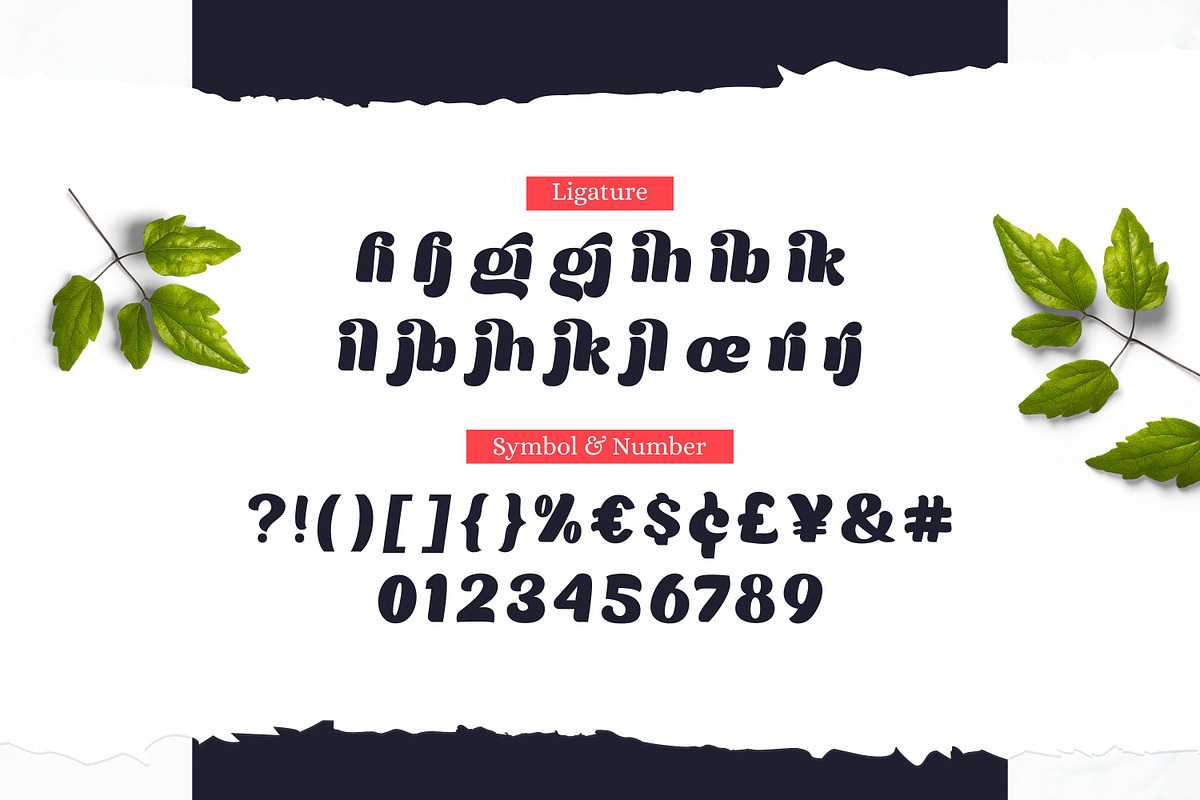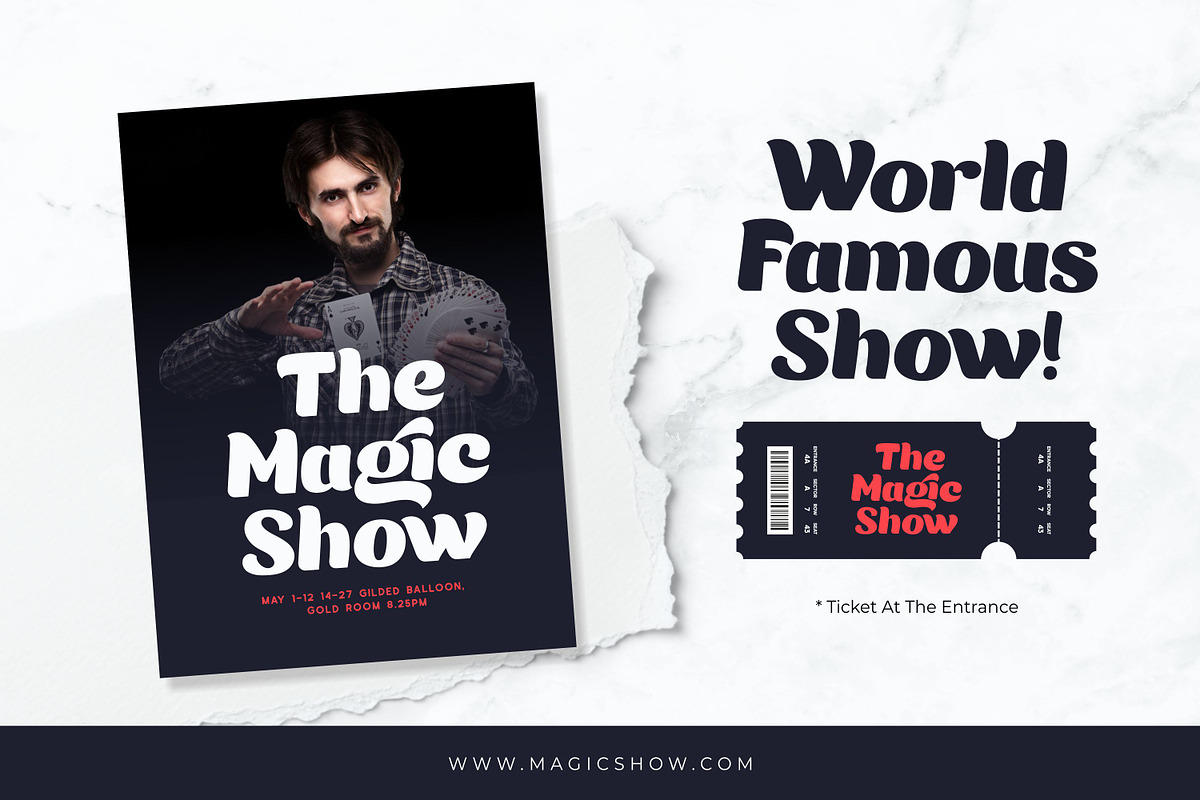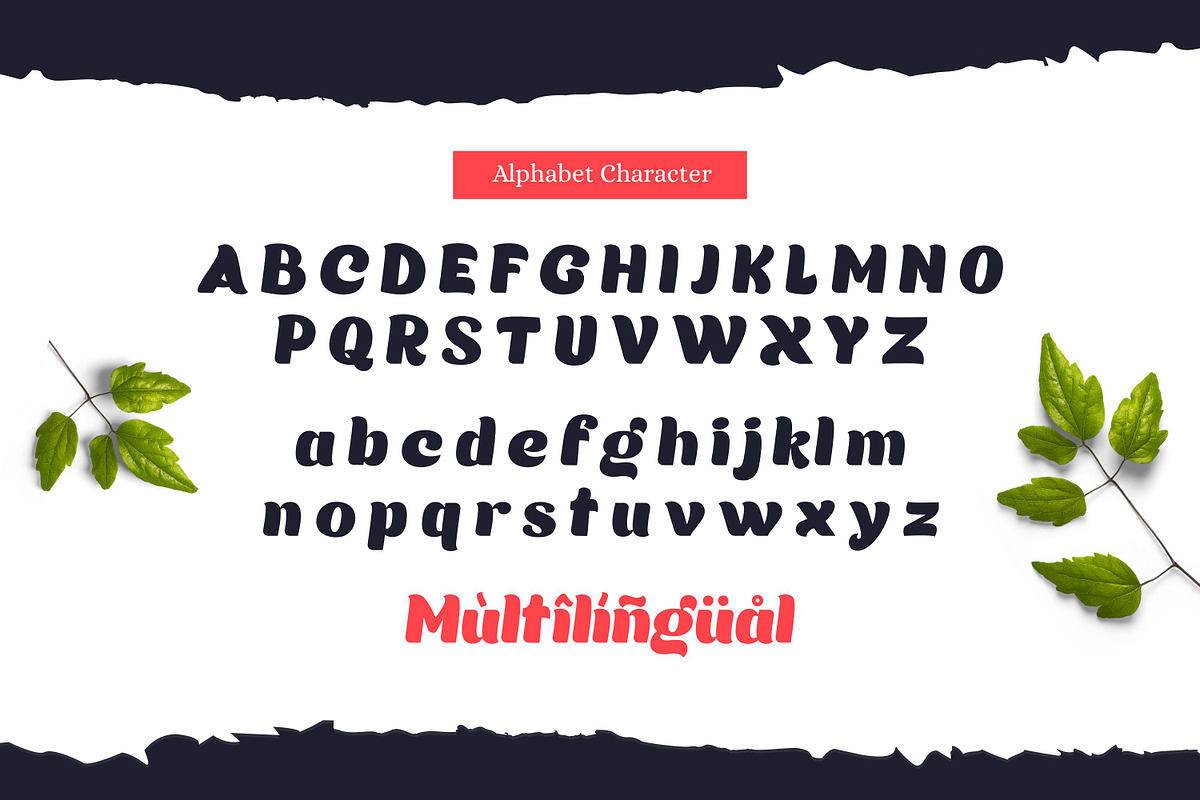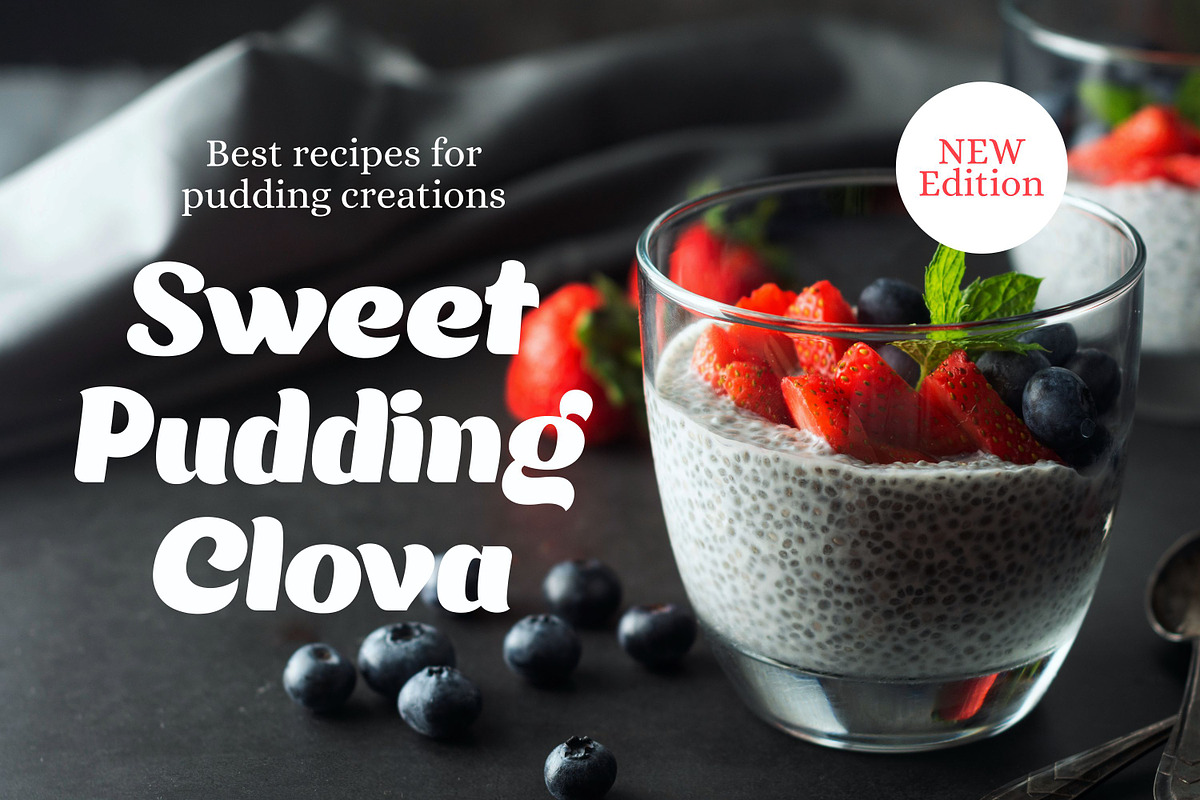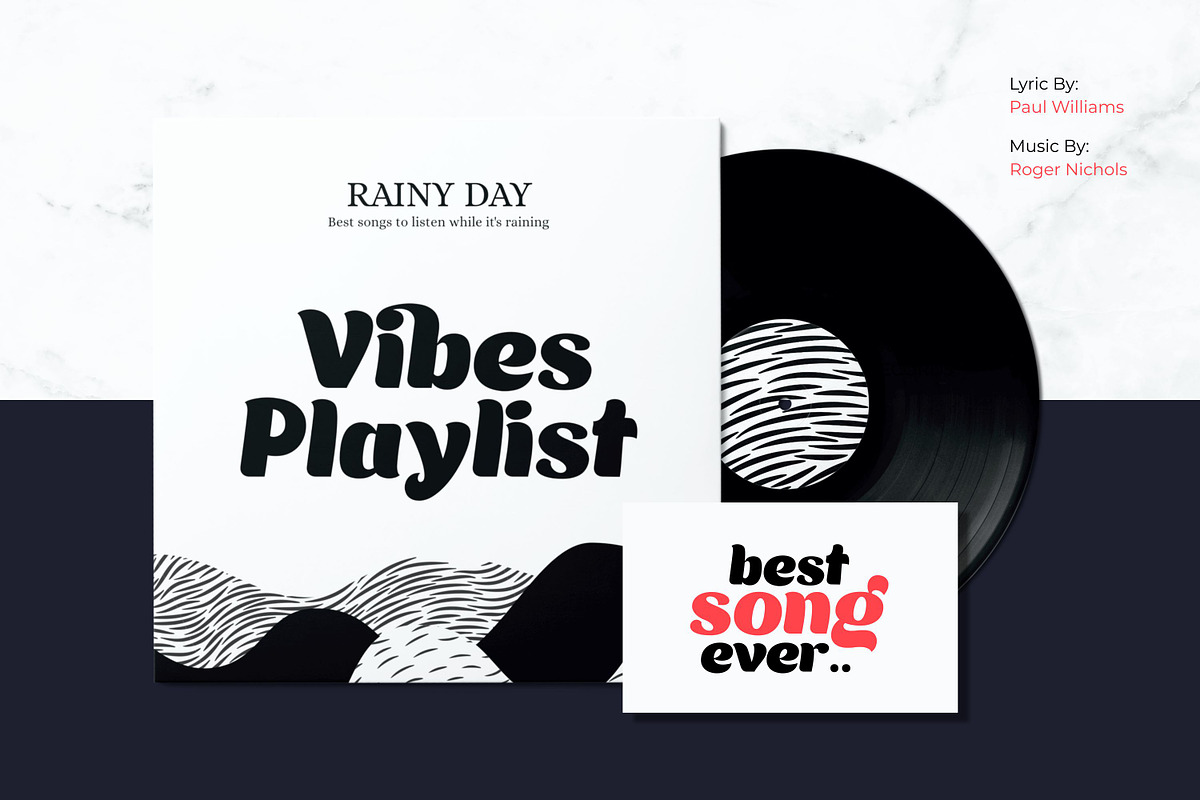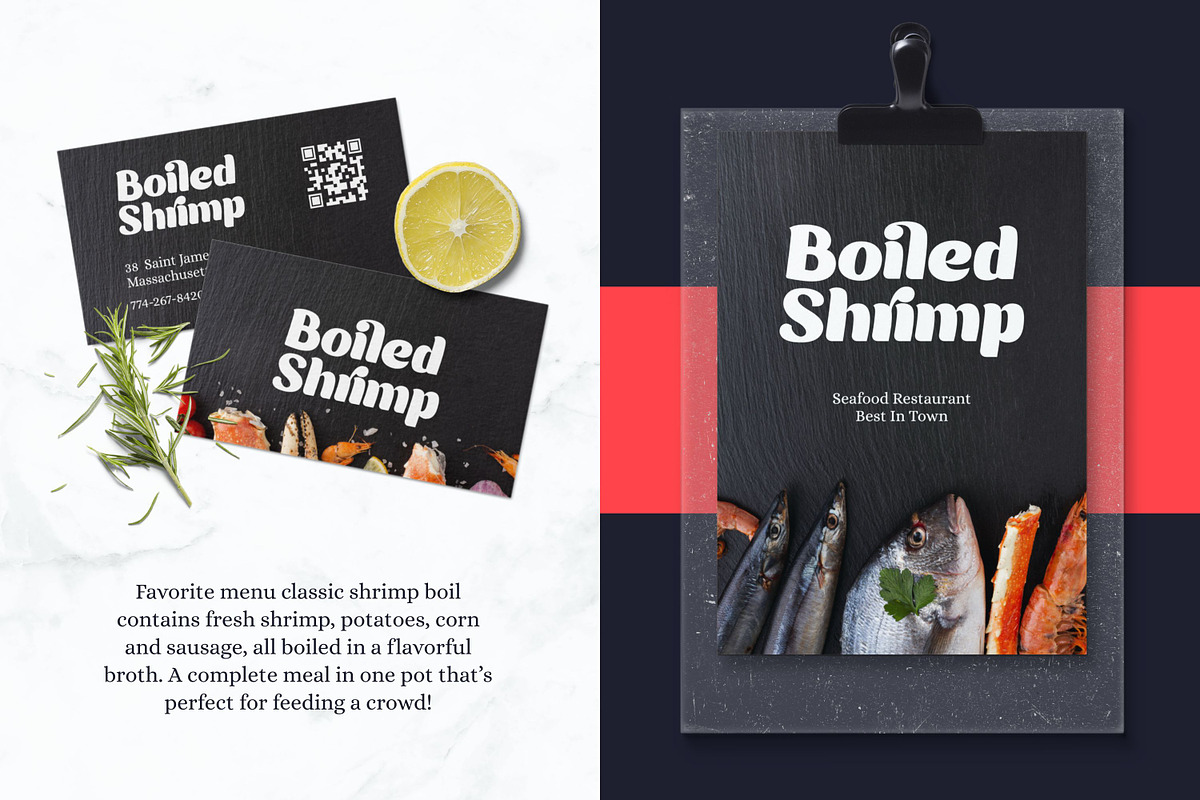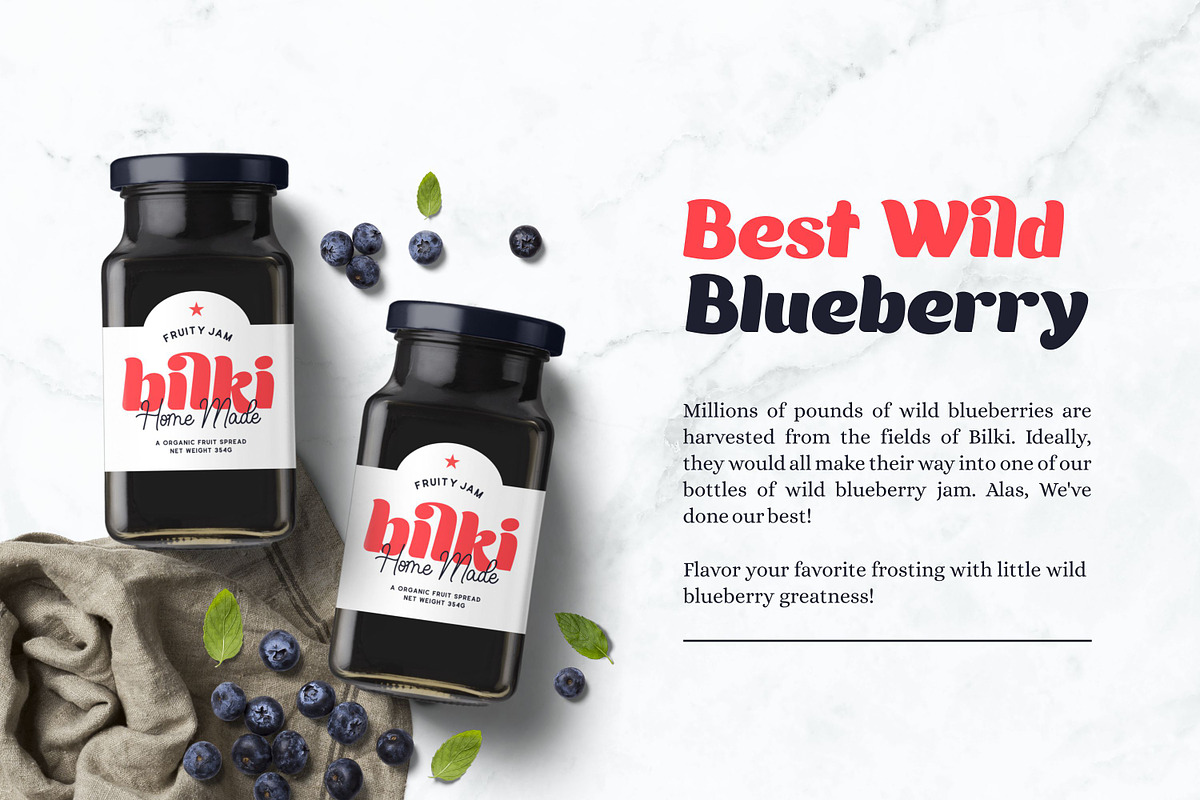
Moilgo - Beautiful Bold Font
Moilgo beautiful bold typeface designed in 2020. It's was inspired by classic typefaces that are synonymous with luxury brands, beauty and elegant curves, high contrast and all-round kind feel are perfect for art projects and typography across all platforms.
Moilgo also has ligature which makes it easy for you to create a logo for your personal branding and your business beautifully. Moilgo will perfect for many project like logo, magazines, poster, branding, packaging, quotes, blog header, poster, advertisements, and etc.
Numerals & punctuation
- Moilgo also has ligature which makes it easy for you to create a logo for your personal branding and your business beautifully.
Moilgo - Beautiful Bold Font by Fype Co. fits naturally into Branding, posters, packaging, typography.